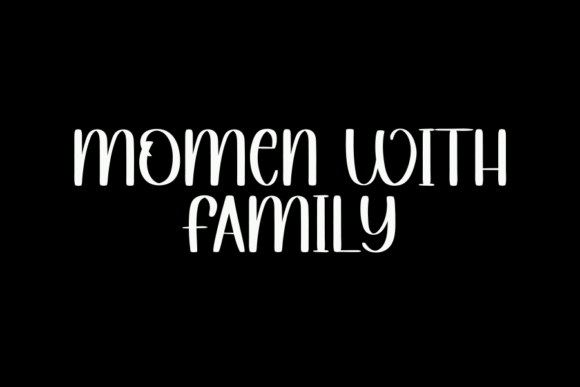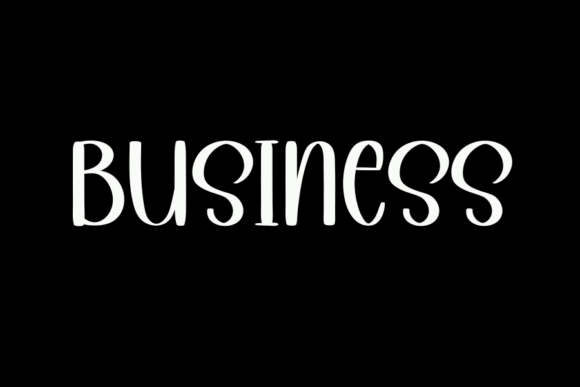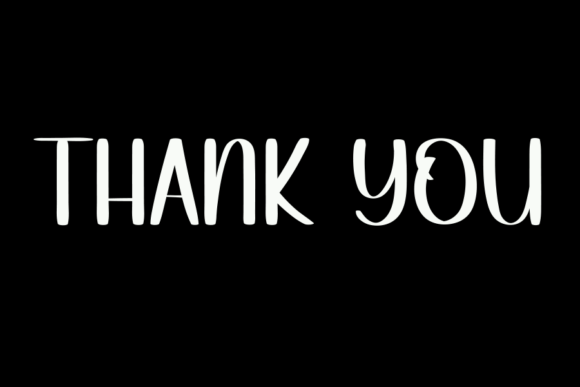
Discover the Sweet Charm of Baby Love Font
Have you ever found yourself staring at a blank page, struggling to come up with the perfect phrase to express your love and excitement? Maybe it’s a birthday card for your little one, a congratulations message for a new mom, or a heartfelt announcement for a family addition. Whatever the occasion, you want your words to shine with love and personality.
That’s where the Baby Love Font comes in – a delightful, handwritten font designed to spread joy and make your messages stand out. Whether you’re a seasoned designer or a crafty enthusiast, this font is the perfect addition to your toolkit. With its friendly and approachable feel, Baby Love Font is sure to become your go-to choice for any project that requires a touch of warmth and love.
Baby Love Font Key Features
- Unique Characteristic: Whimsical and playful design, featuring baby-themed illustrations and ornaments, making it ideal for children’s products and nursery decor.
- Font Style: A combination of script and sans-serif elements, creating a unique and eye-catching visual effect.
Baby Love Font Review
Overall, I found the Baby Love Font to be a charming and whimsical script font, perfect for designers looking to add a touch of sweetness to their projects. ✨ The font’s elegant and flowing lines make it an excellent choice for wedding invitations, baby shower decorations, and other related themes.
- ✨ The font’s unique and playful feel makes it stand out from other script fonts.
- ✨ The font includes a wide range of characters, including uppercase and lowercase letters, numbers, and punctuation marks.
- ⚠️ The font may not be suitable for formal or professional projects, as it can come across as too playful or juvenile.
- ⚠️ The font may not be as readable at very small sizes, which can make it difficult to use in certain applications.
In conclusion, the Baby Love Font is a delightful and versatile script font that can add a touch of whimsy to any project. While it may have some limitations, I believe it is a valuable addition to any designer’s toolkit.
Tips for Getting the Most Out of Baby Love Font
- Use it for baby-themed designs, such as nursery decor, baby shower invitations, and baby announcements.
- Combine it with other playful fonts for a unique and eye-catching design.
- Experiment with different font sizes and colors to create a visually appealing design.
Common Use Cases for Baby Love Font
The Baby Love Font is commonly used for:
- Baby shower invitations and announcements.
- Nursery decor and wall art.
- Baby gift tags
Baby Love Font is a playful, cursive script font. If you’re looking for similar alternatives, here are a few options: